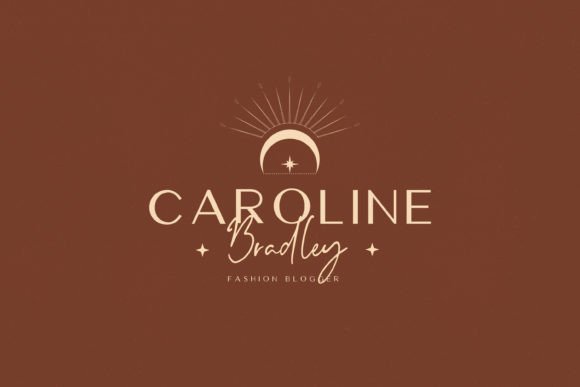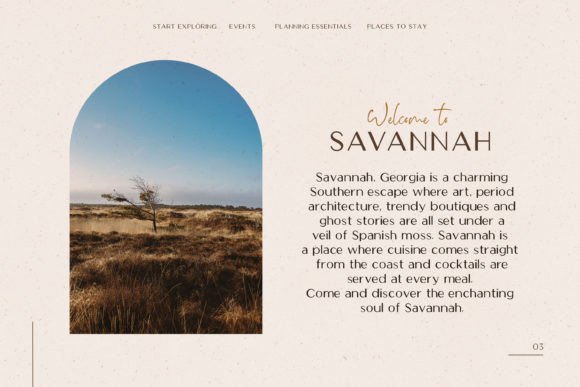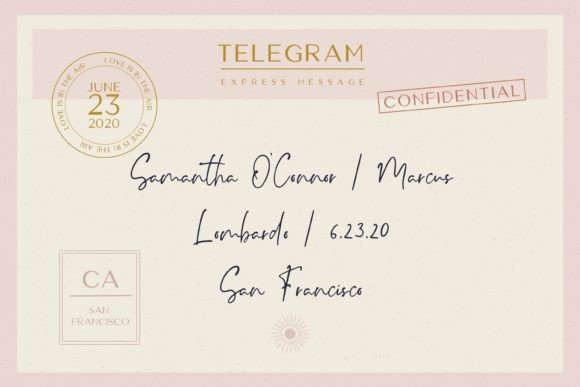
Bohemy Font
Bohemy is an aesthetic font duo. Perfectly suited to logo, branding, signature, wedding cards, packaging design, stationery, website design and more.